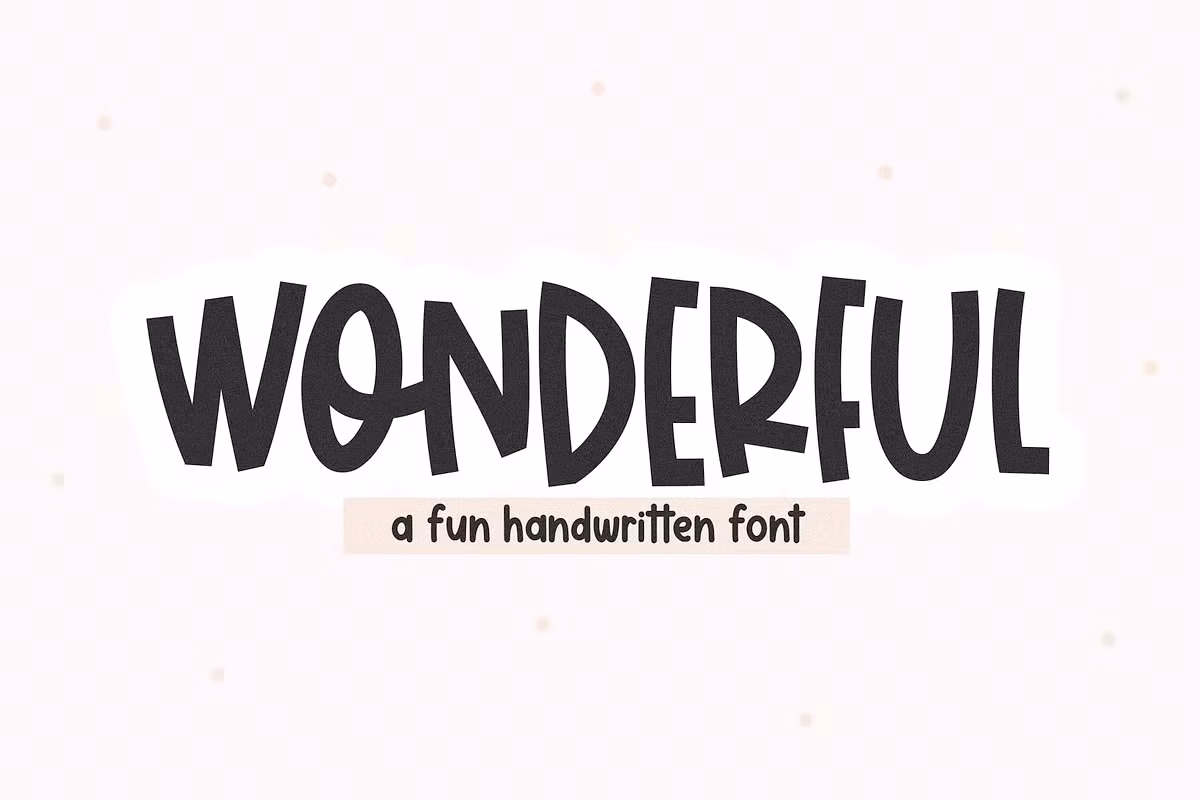
Wonderful | Cute Handwritten Font Free Download
Wonderful | Cute Handwritten Font Free Download is an adorable and playful script typeface that adds a personal, handmade touch to your designs. Perfect for logos, invitations, greeting cards, branding, and more, this font brings a fun and whimsical feel to any project. Its natural handwritten style makes it ideal for designs that require a friendly, charming, and authentic look.